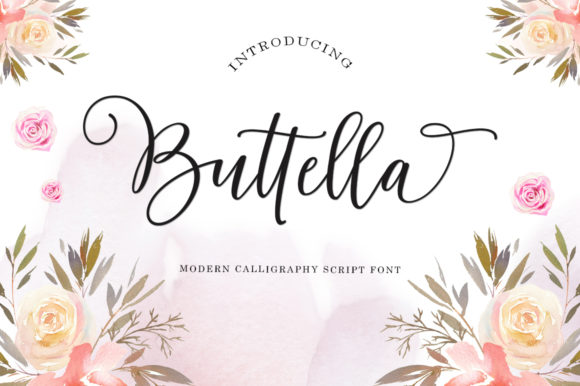
Behold the Buttella Script Font, a typographic masterpiece that encapsulates the essence of elegance and sophistication. This modern calligraphy font, crafted with the utmost care by Zane Studio, is a visual sonnet that dances across your designs with grace and allure.
Immerse yourself in the world of Buttella Script, where each letter is a brushstroke of beauty, flowing effortlessly from one to the next. Its natural writing style emulates the fluidity of pen on paper, capturing the charm and intimacy of handwritten notes. Unleash your creativity and let your designs bloom with the allure of Buttella Script.
With Buttella Script, every word becomes a work of art, a testament to your discerning taste and impeccable style. It's the perfect font for adding a touch of luxury and refinement to your designs. Whether you're creating wedding invitations, branding materials, or simply adding a touch of elegance to your social media posts, Buttella Script will elevate your words and captivate your audience.
Buttella Script is not just a font; it's an experience. It's the feeling of holding a handwritten letter from a loved one, the joy of receiving a beautifully crafted invitation, the thrill of seeing your brand come to life with a unique and memorable logo. It's a font that will touch your heart and leave a lasting impression on everyone who sees it.
So why settle for ordinary fonts when you can embrace the extraordinary? Choose Buttella Script and let your designs shine with brilliance. Let your words dance with elegance and grace, and create something truly unforgettable. Embrace the allure of Buttella Script and transform your designs into masterpieces.